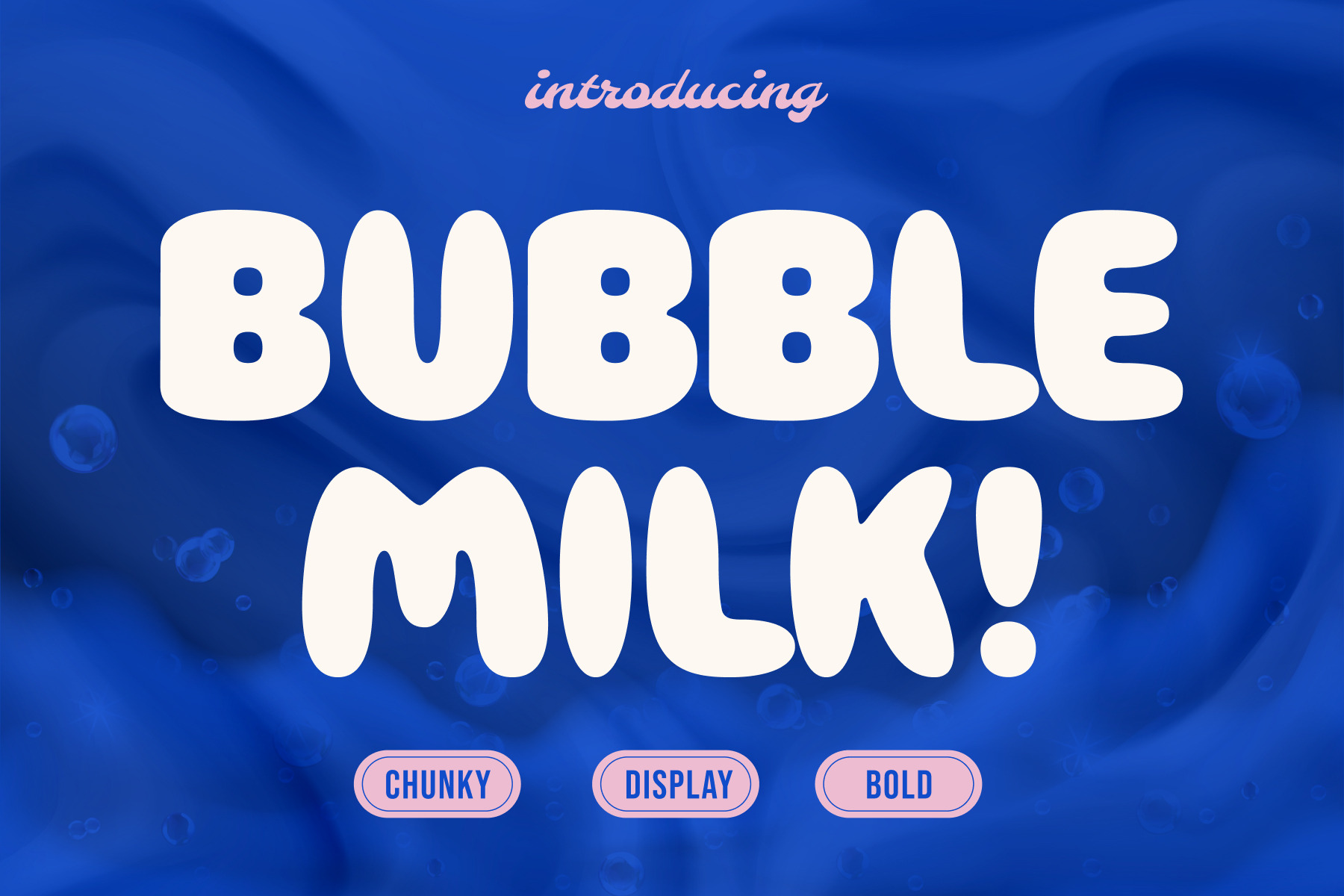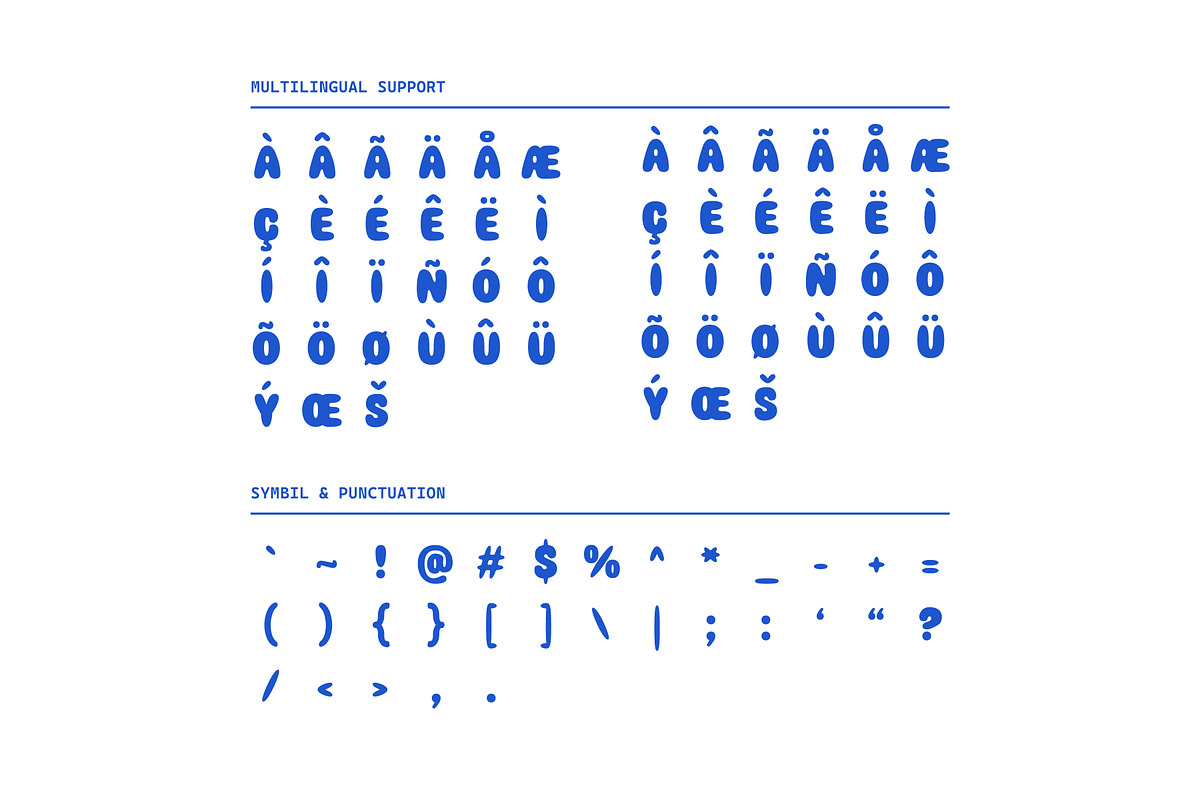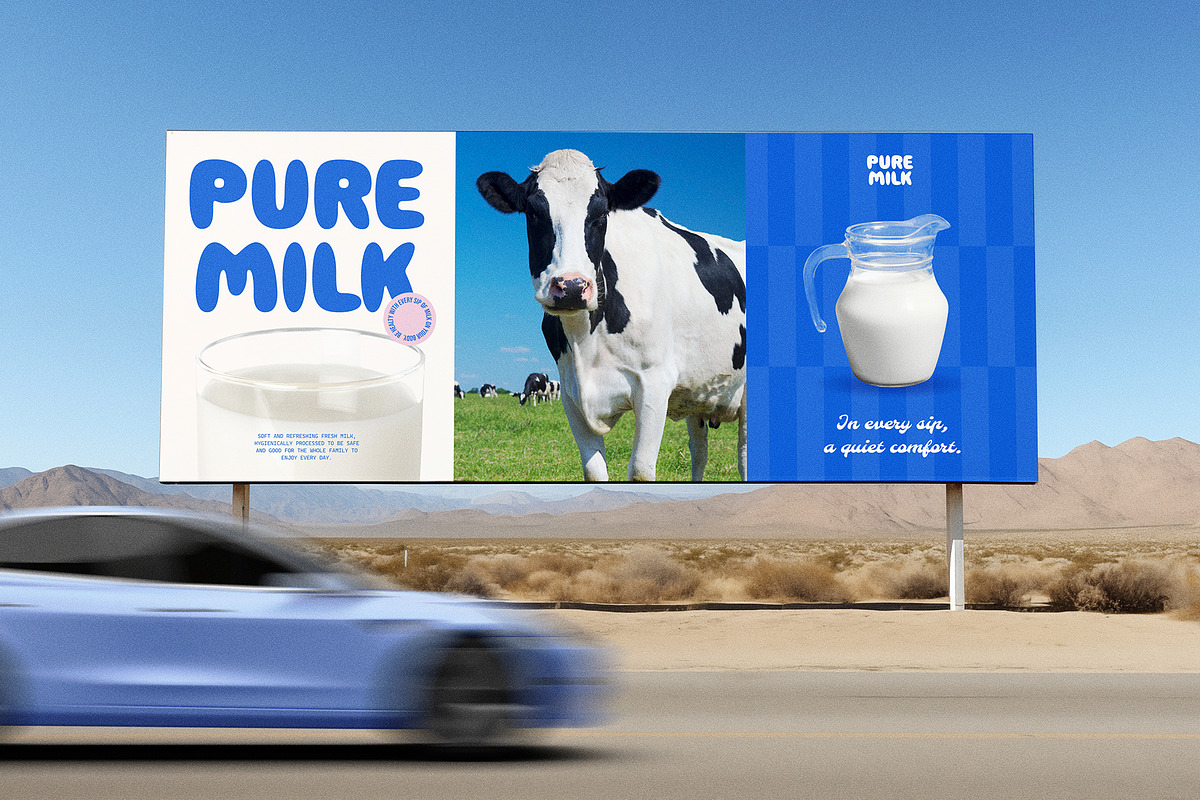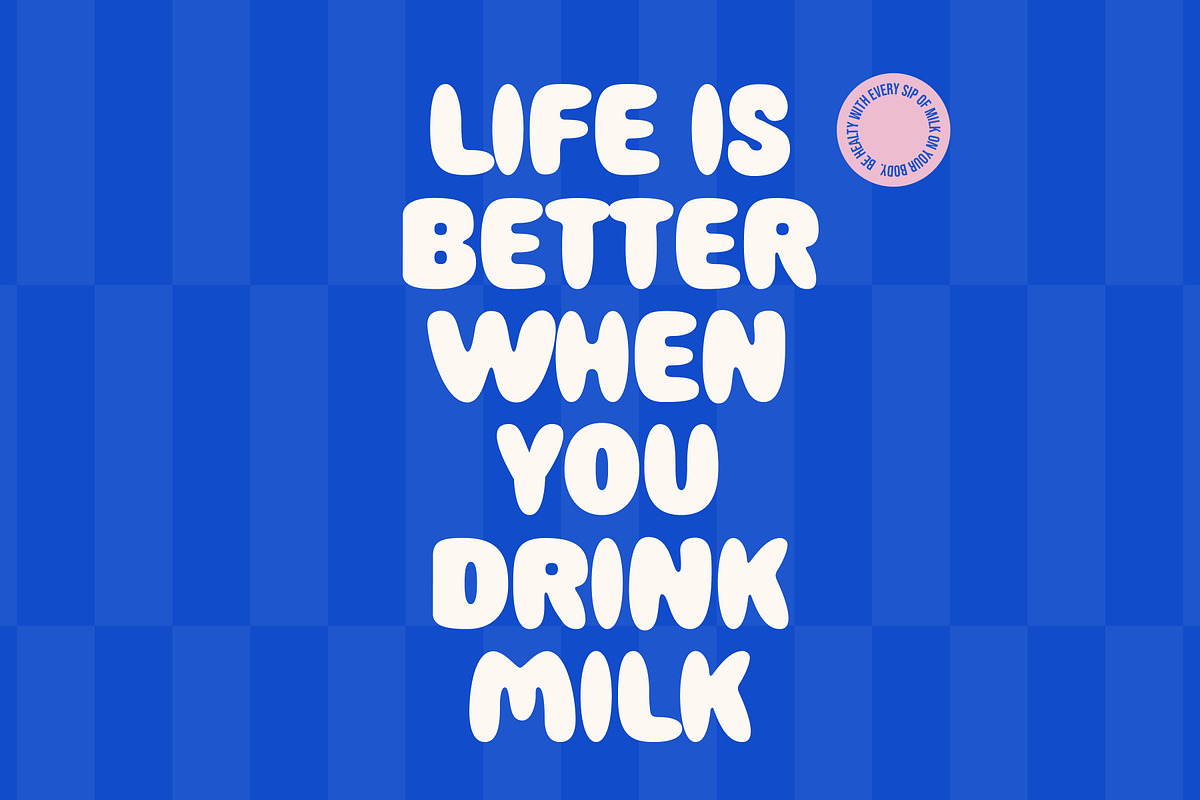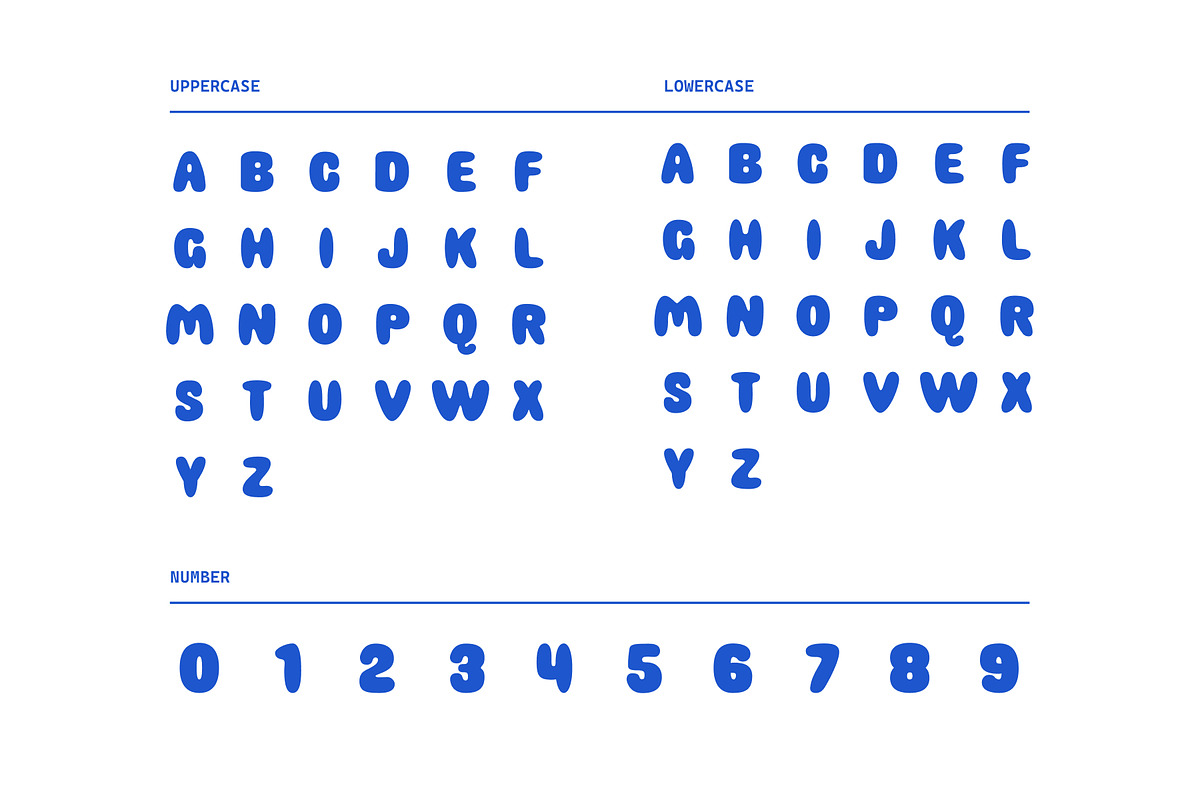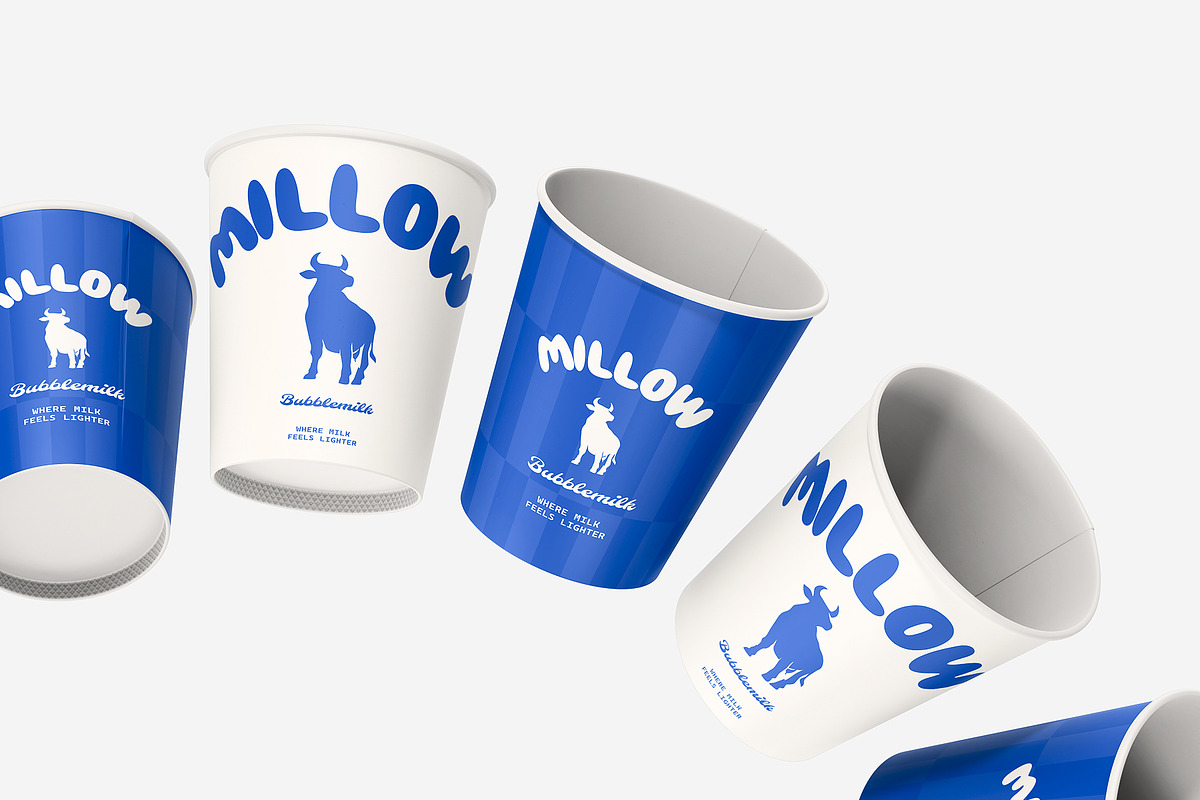
Bubble Milk – Bold Display Font
Bubble Milk is a bold display font with a cute, soft, and playful personality. Featuring rounded shapes and a modern aesthetic, this typeface is perfect for branding, children’s projects, packaging, posters, headlines, logos, and social media designs. Its friendly and eye-catching style makes it ideal for creative projects that need a fun, unique, and memorable visual impact.